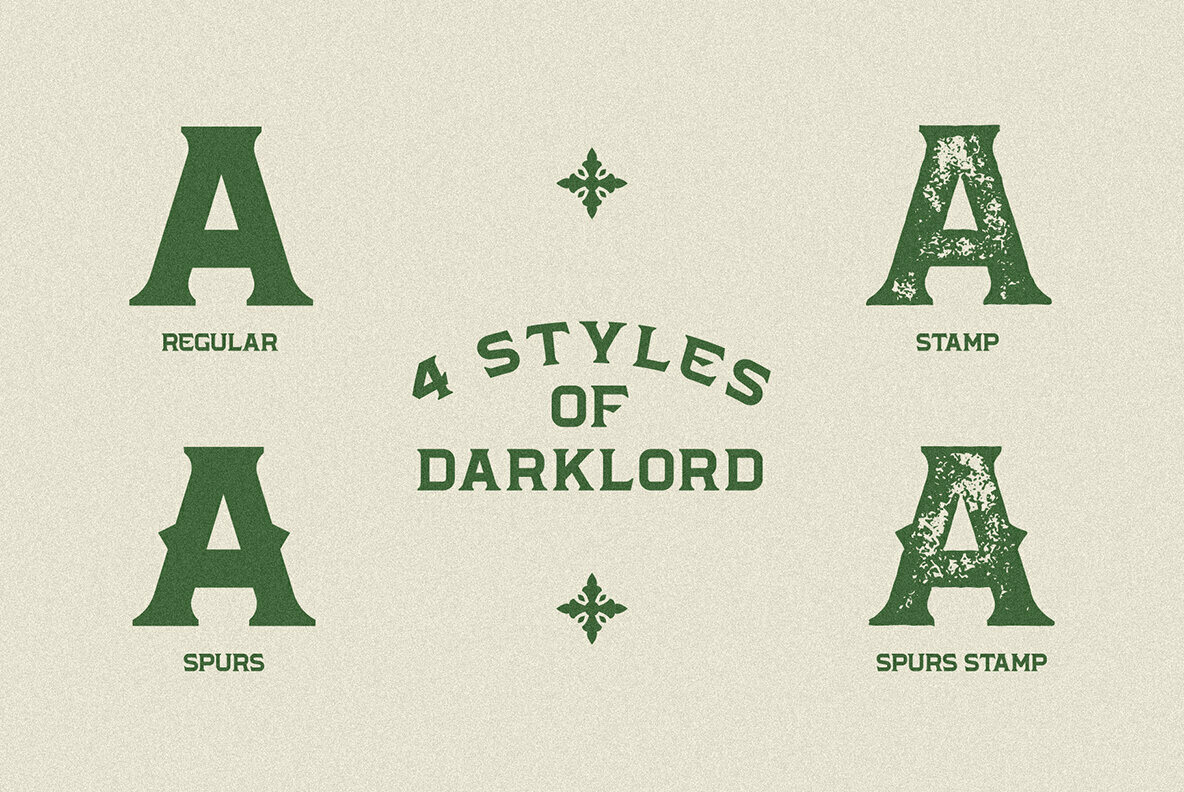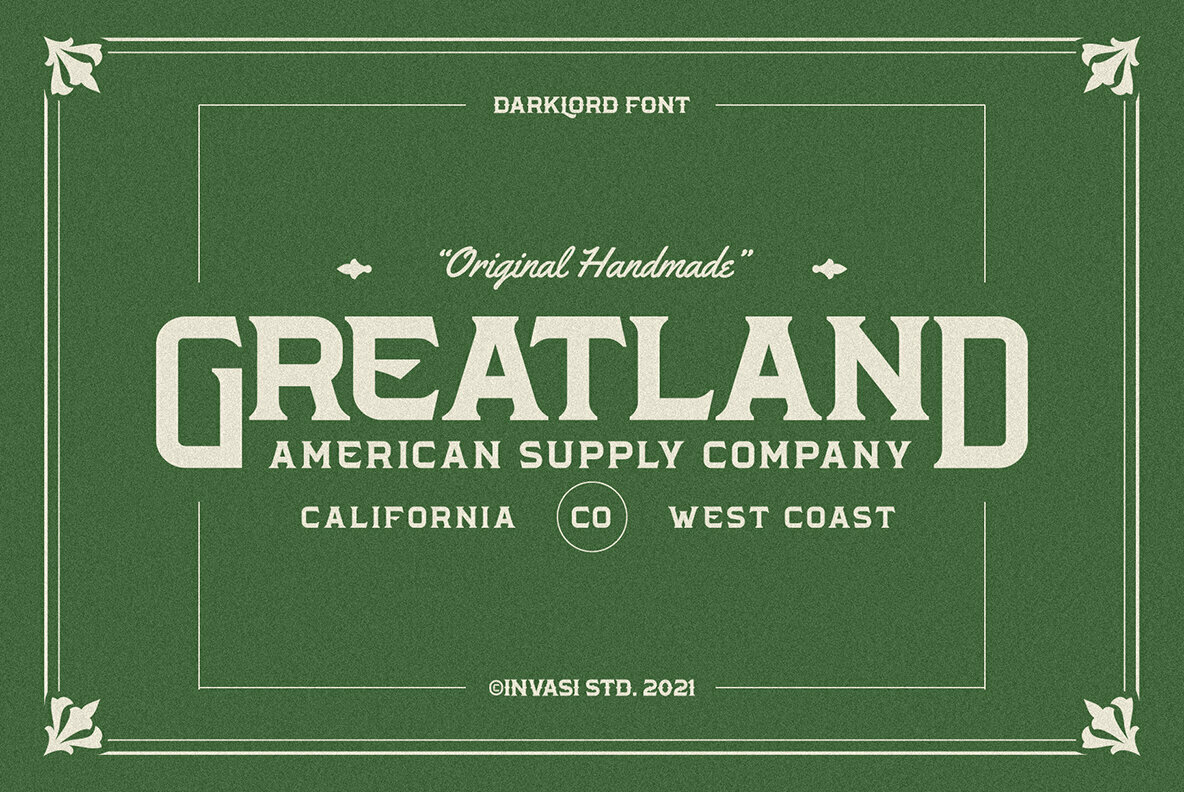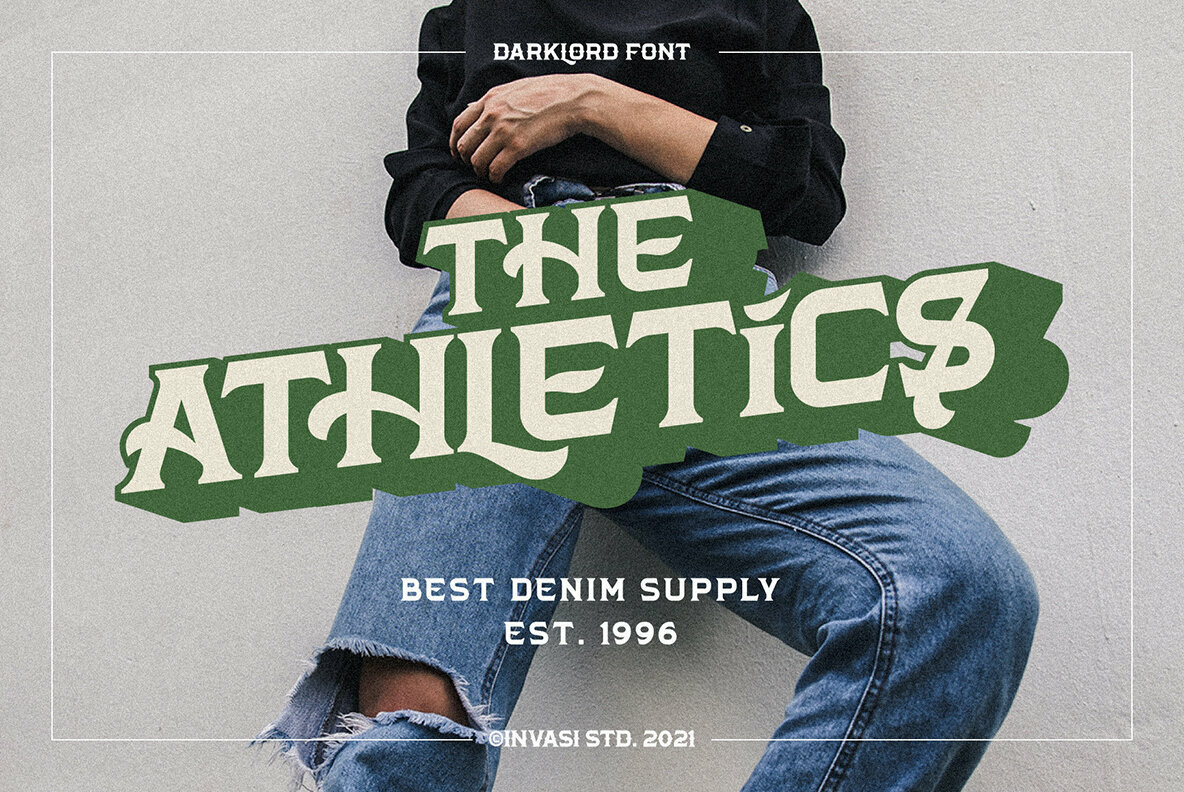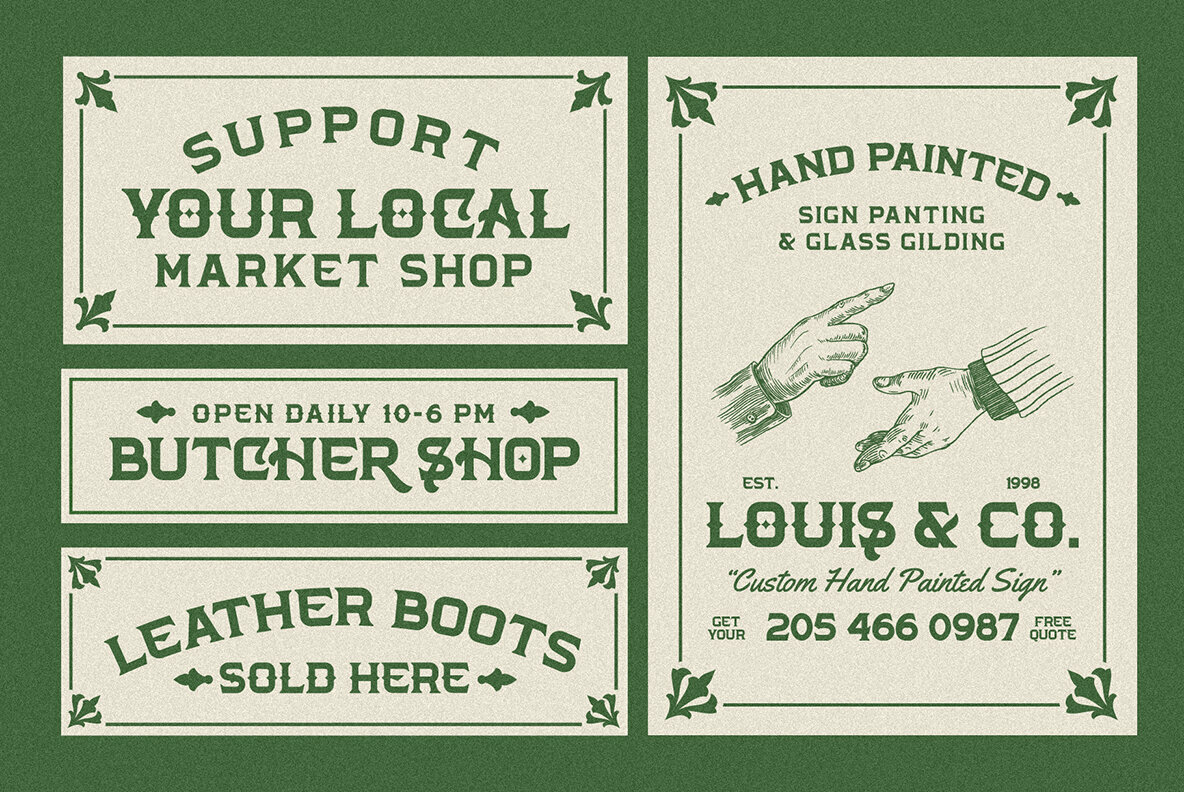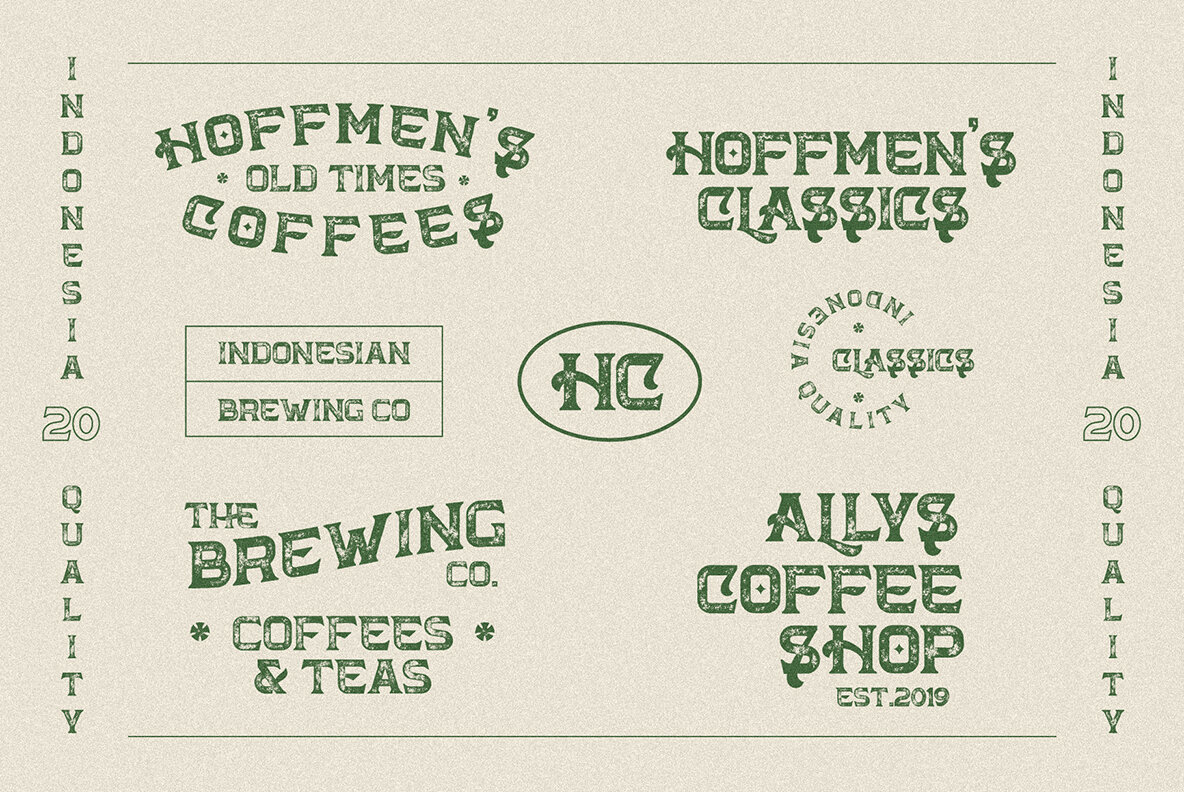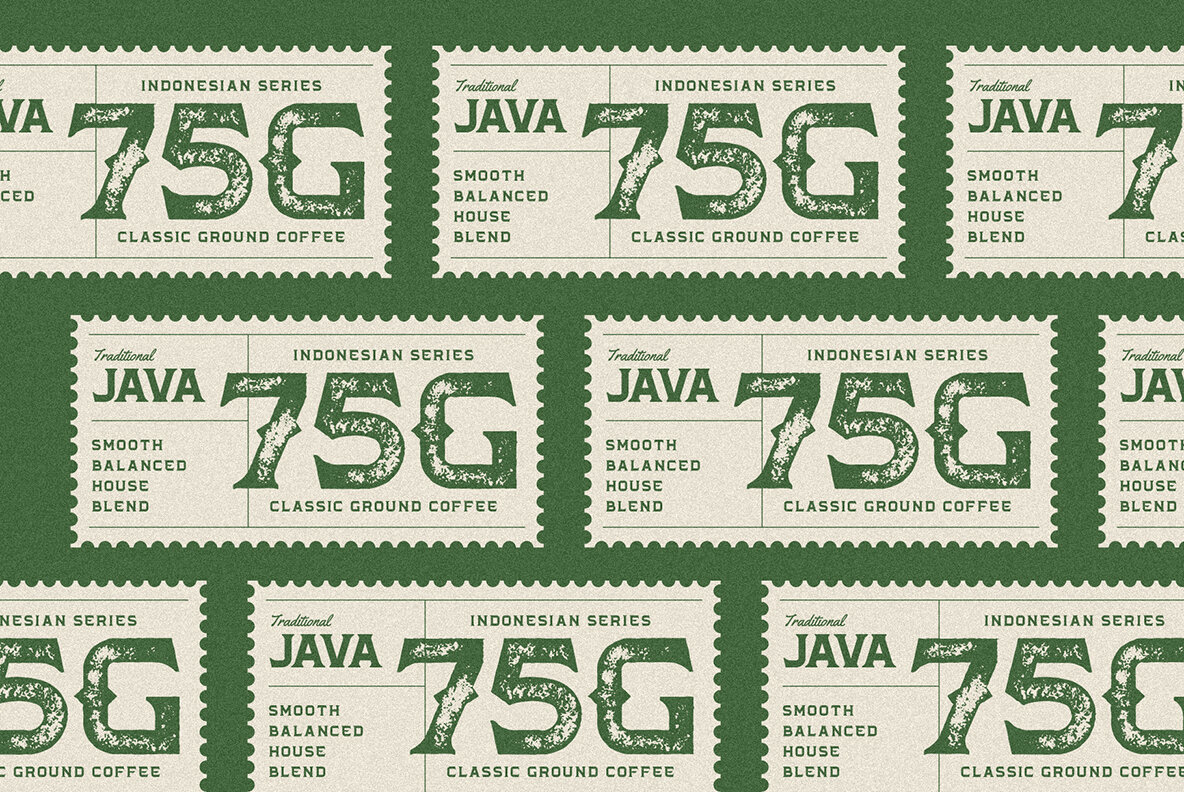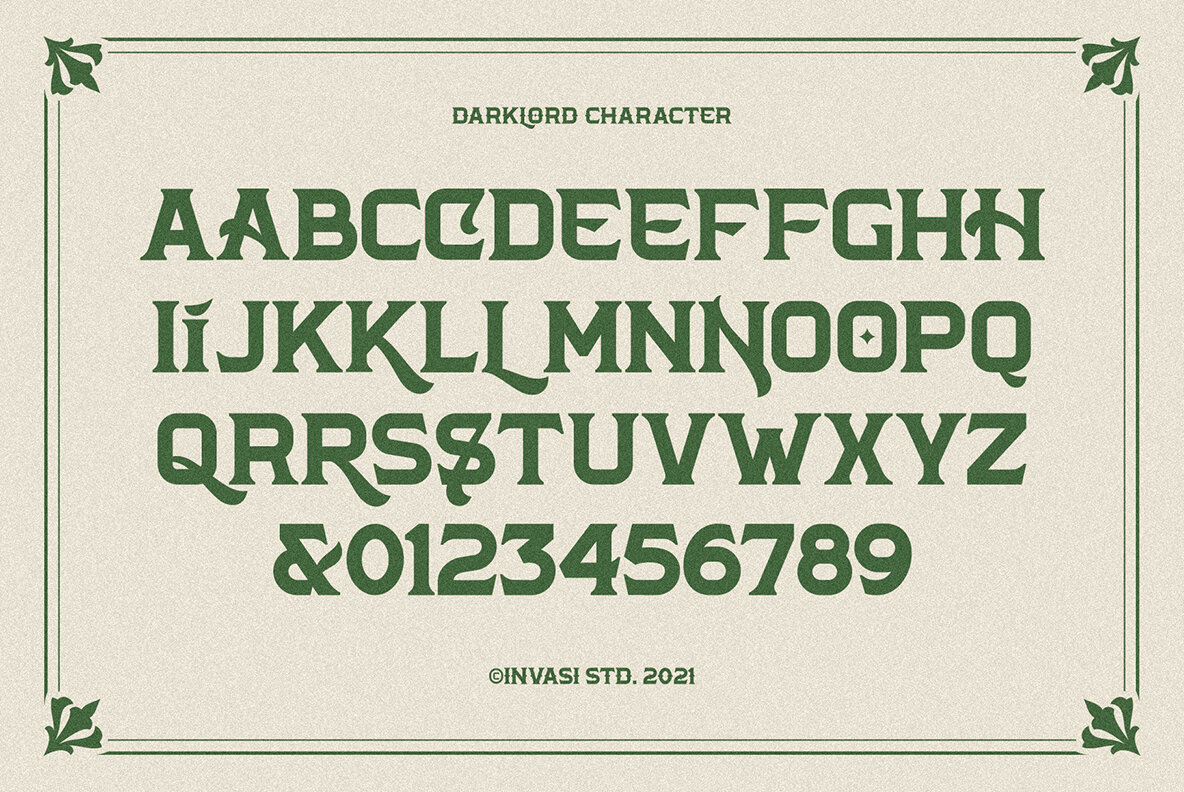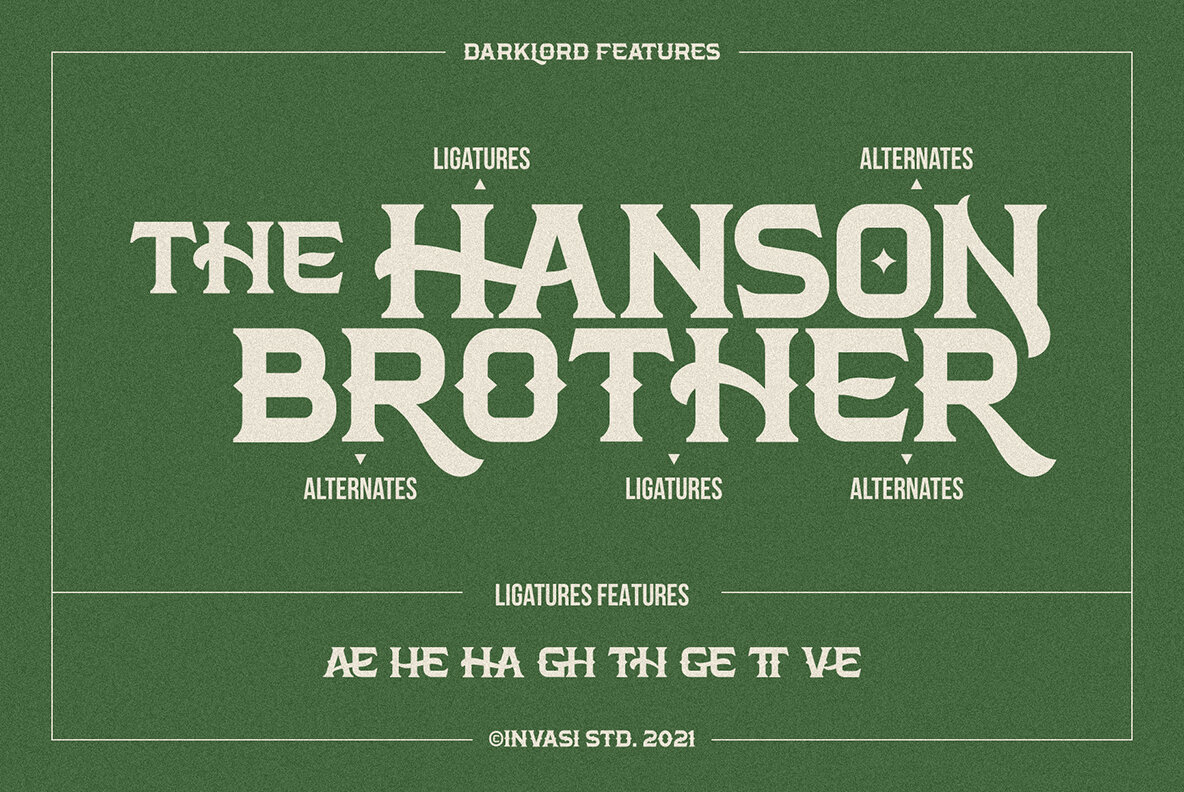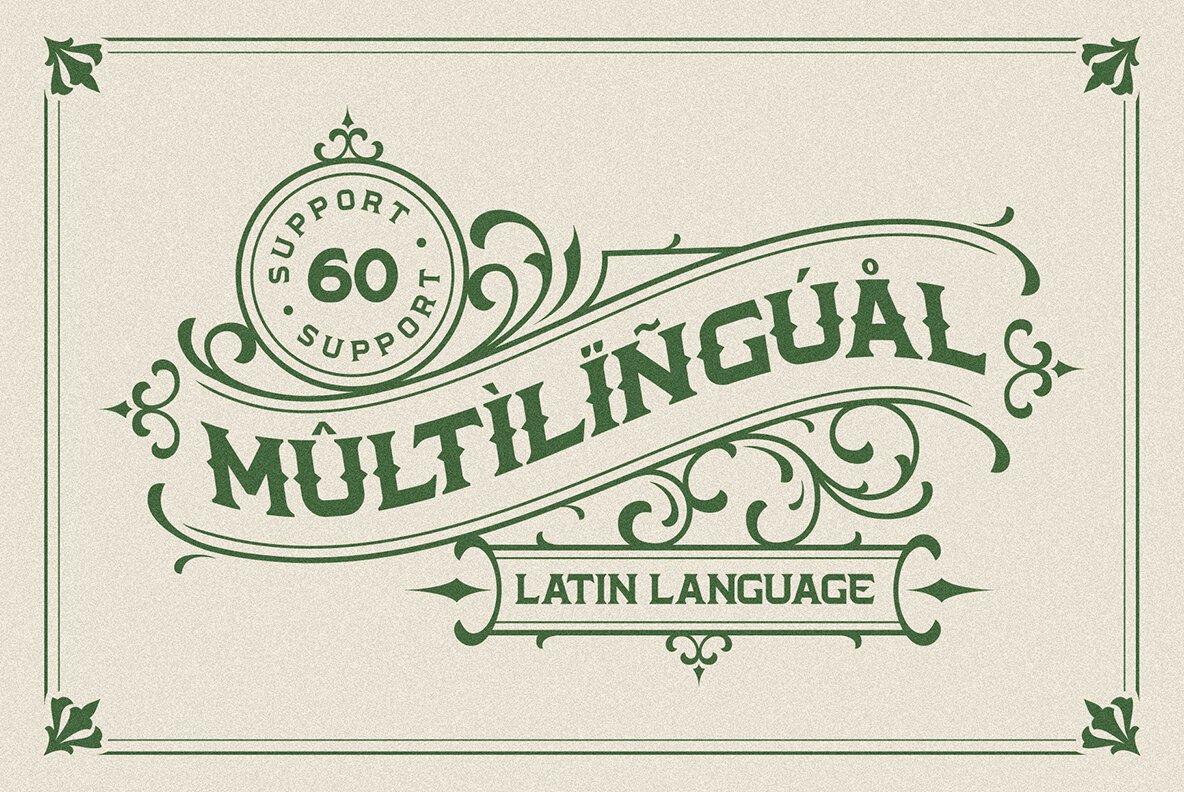
Darklord Font
Darklord is inspired by the old-fashioned era. The Darklord font is a heavy-weight semi-serif font from the vintage style. Four varieties are available: Regular, Stamp, Spurs, and Spurs Stamp. The use of this font results in carefully-crafted styles.
Darklord font is ideal for branding projects, posters, or packaging that need a vintage feel.
- Numerals & Punctuation
- Multilanguage Supports 60+ Latin based languages
- Alternates and Ligatures